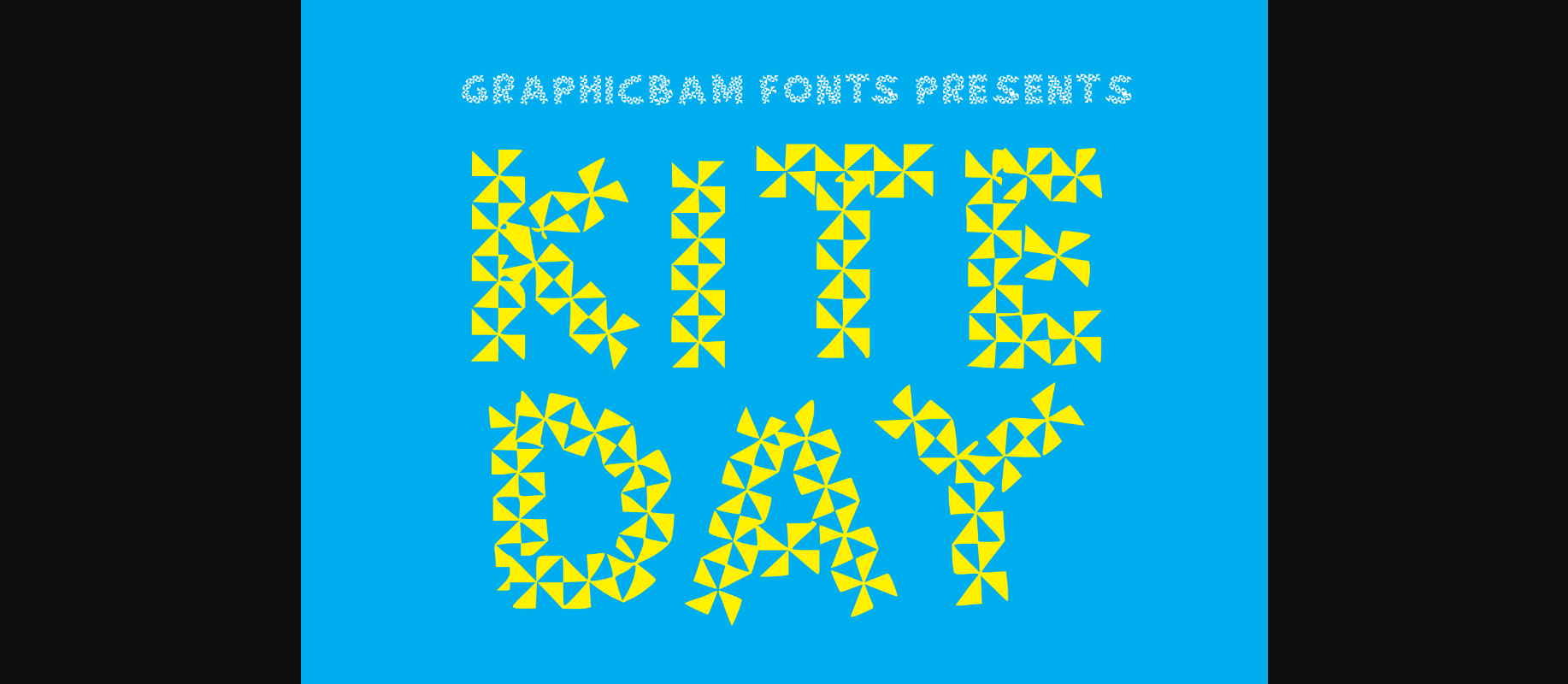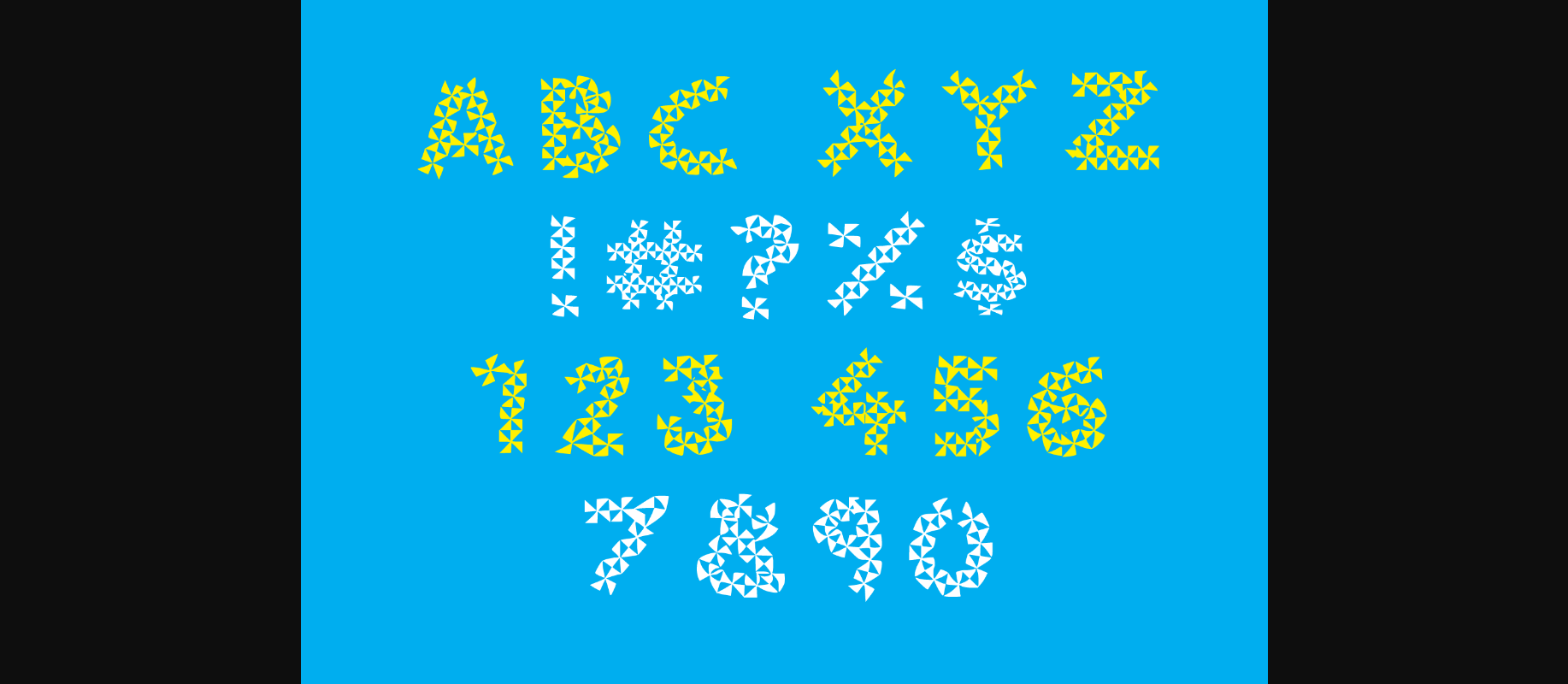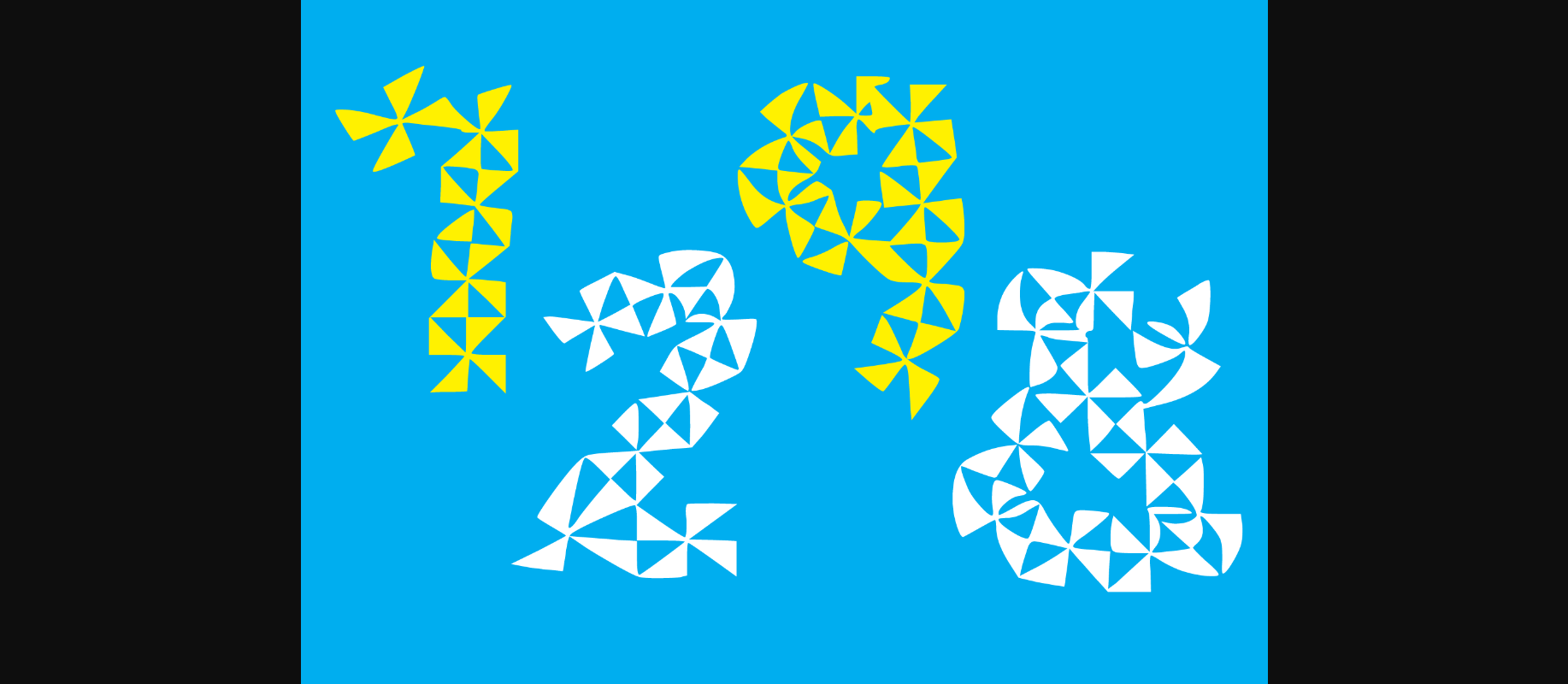
About Kite Day Font
Kite Day is a cool, quirky and unique decorative font. It appears as though its characters were created out of little geometrical shapes. Add this cool looking font to your designs, and they will instantly stand out.